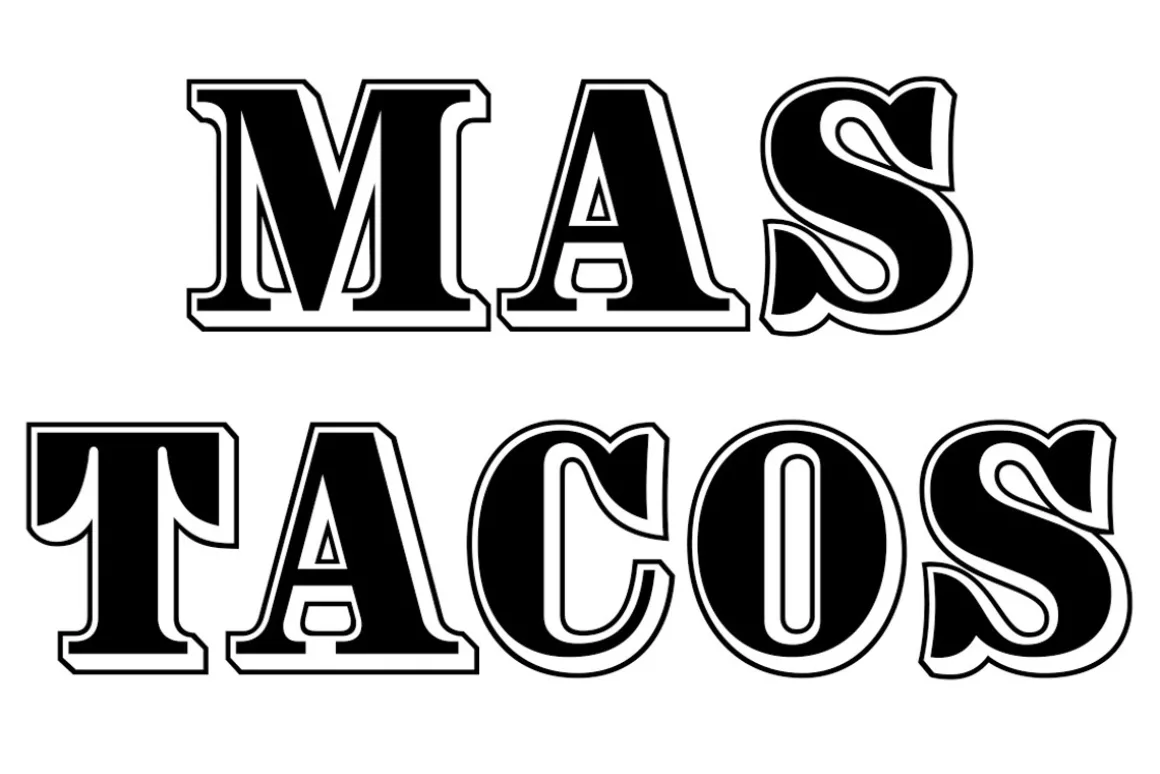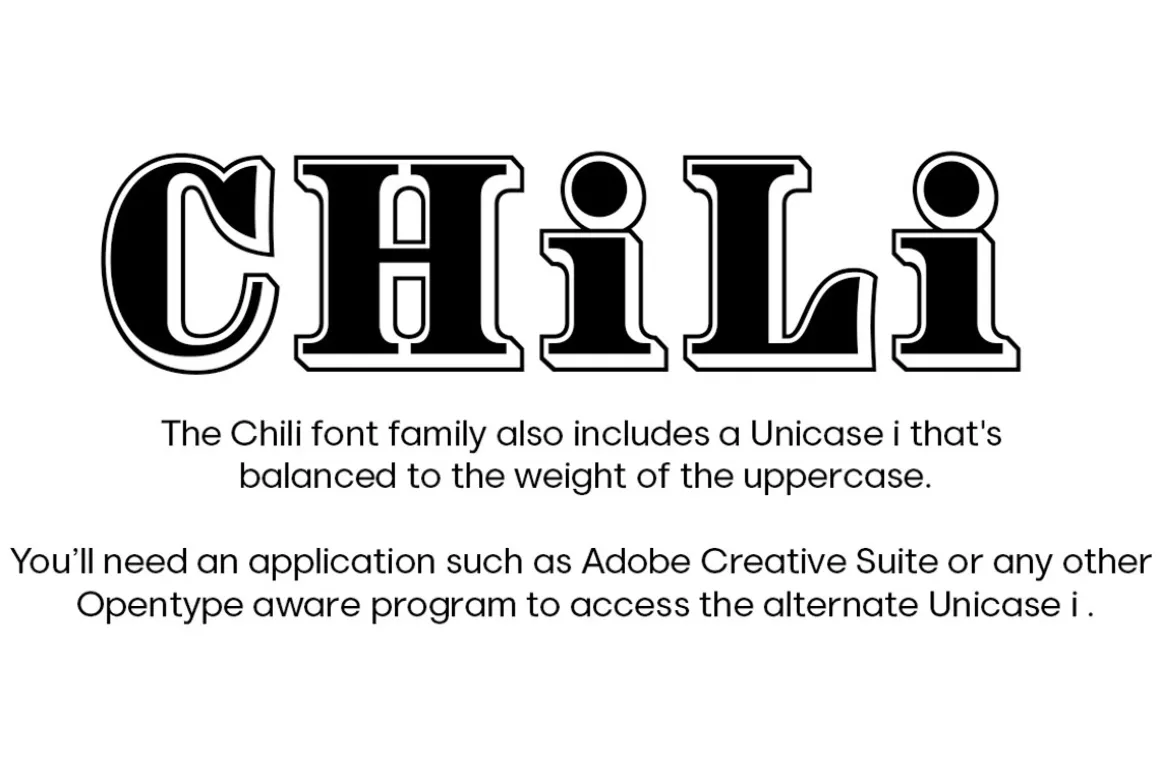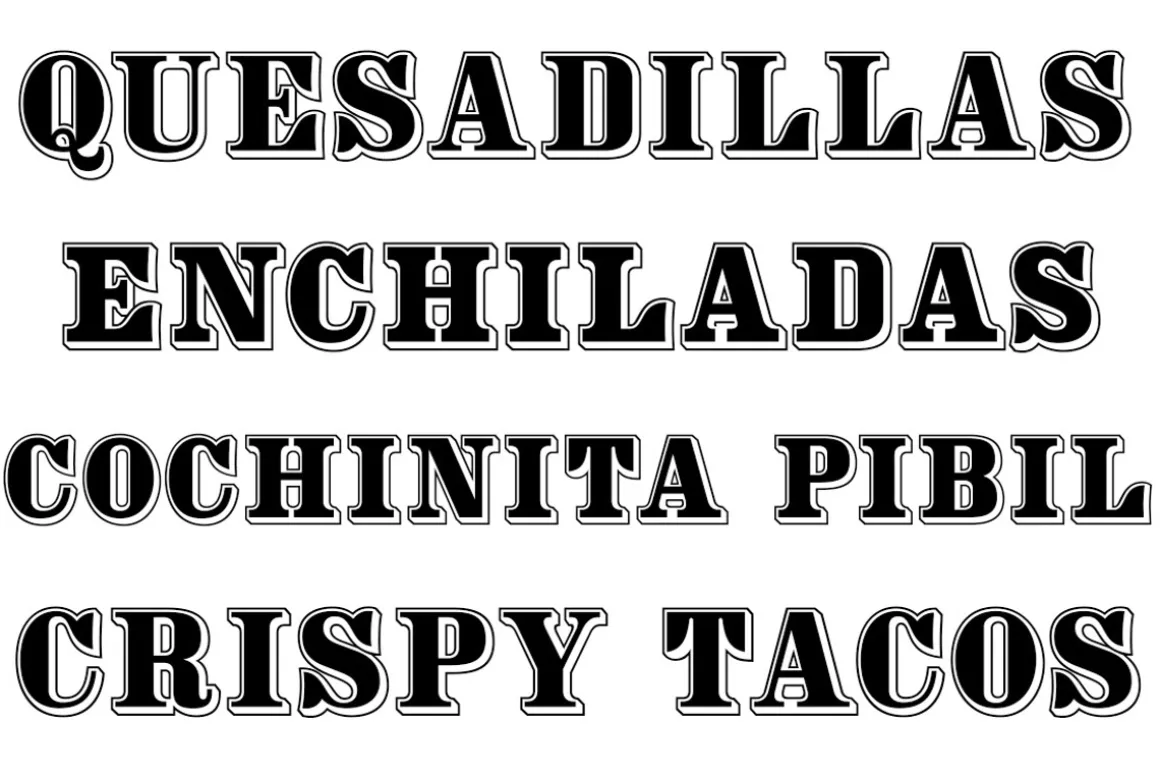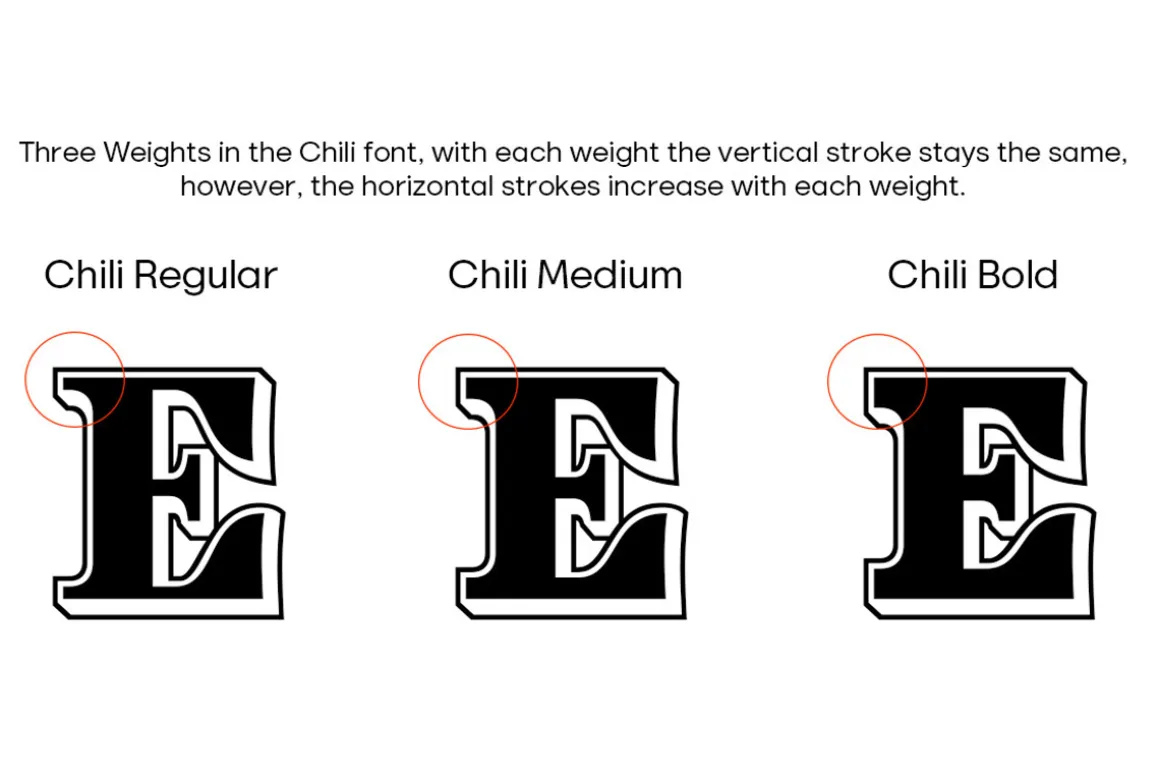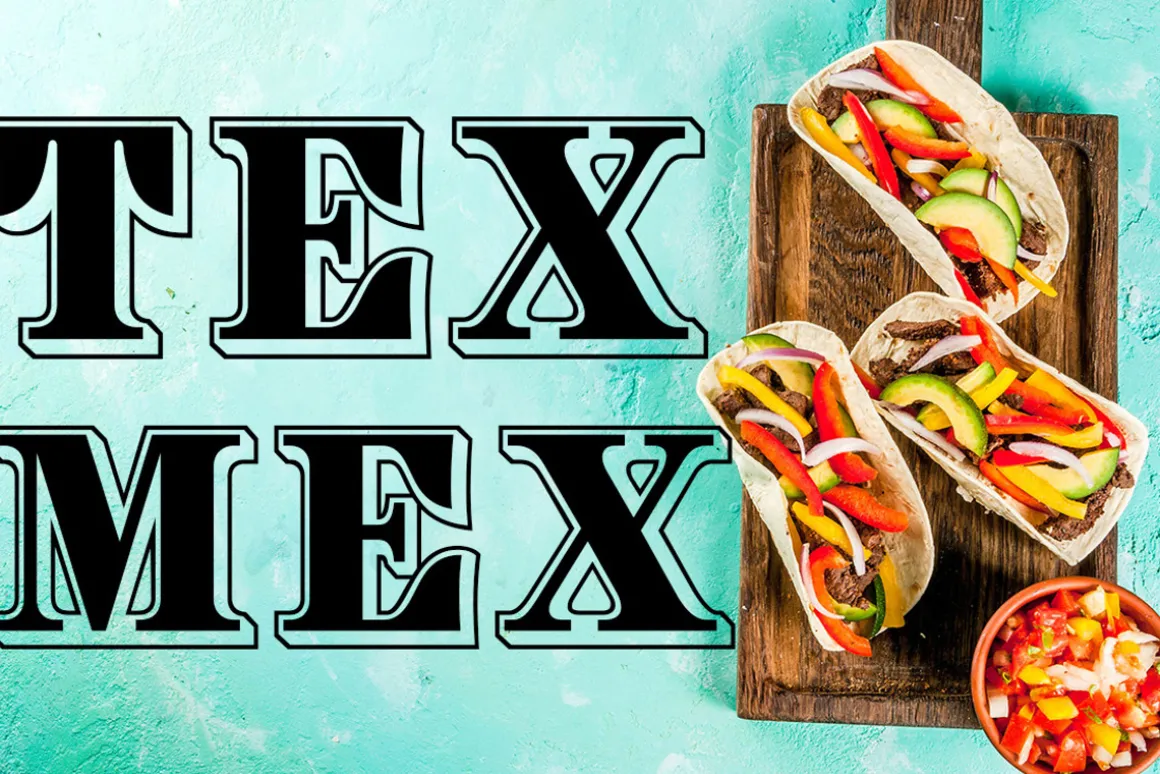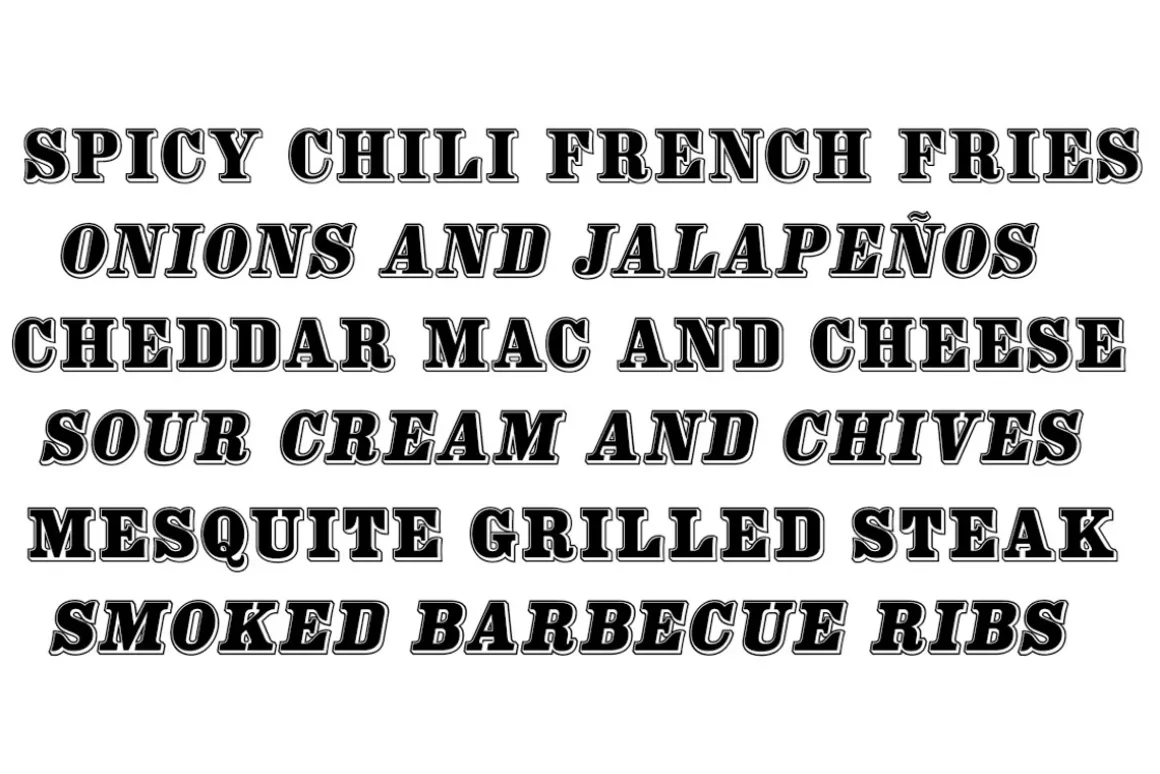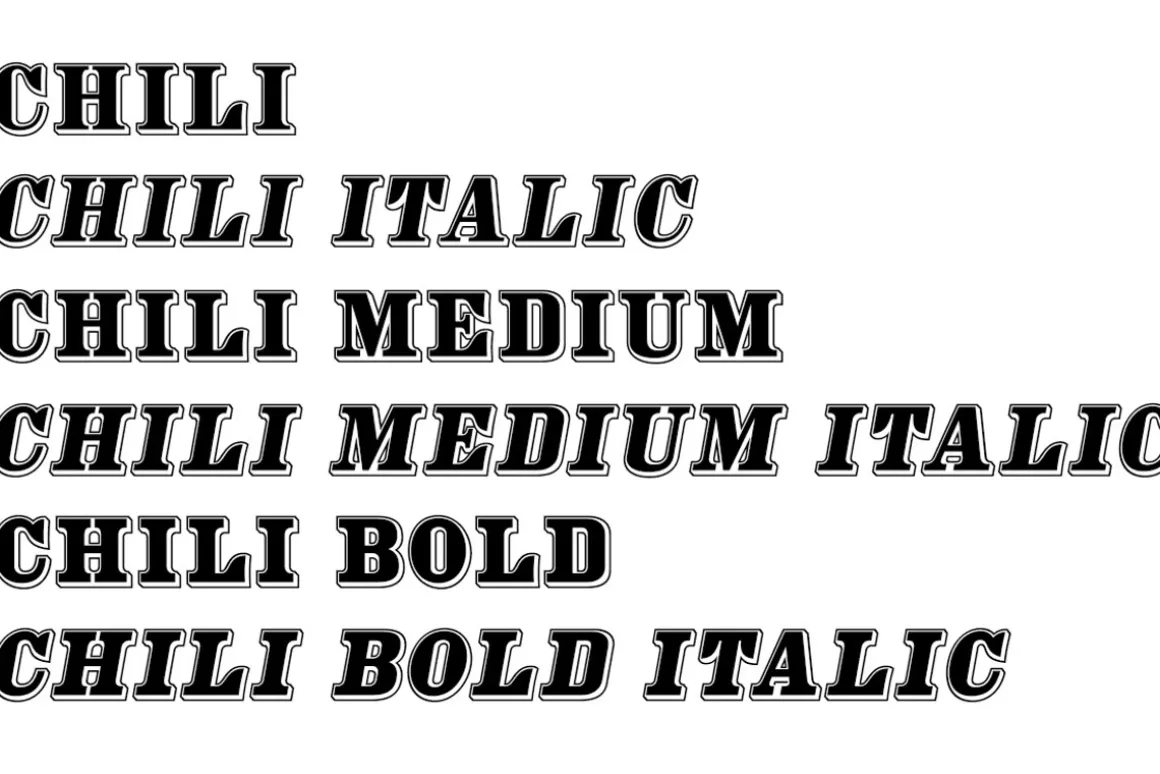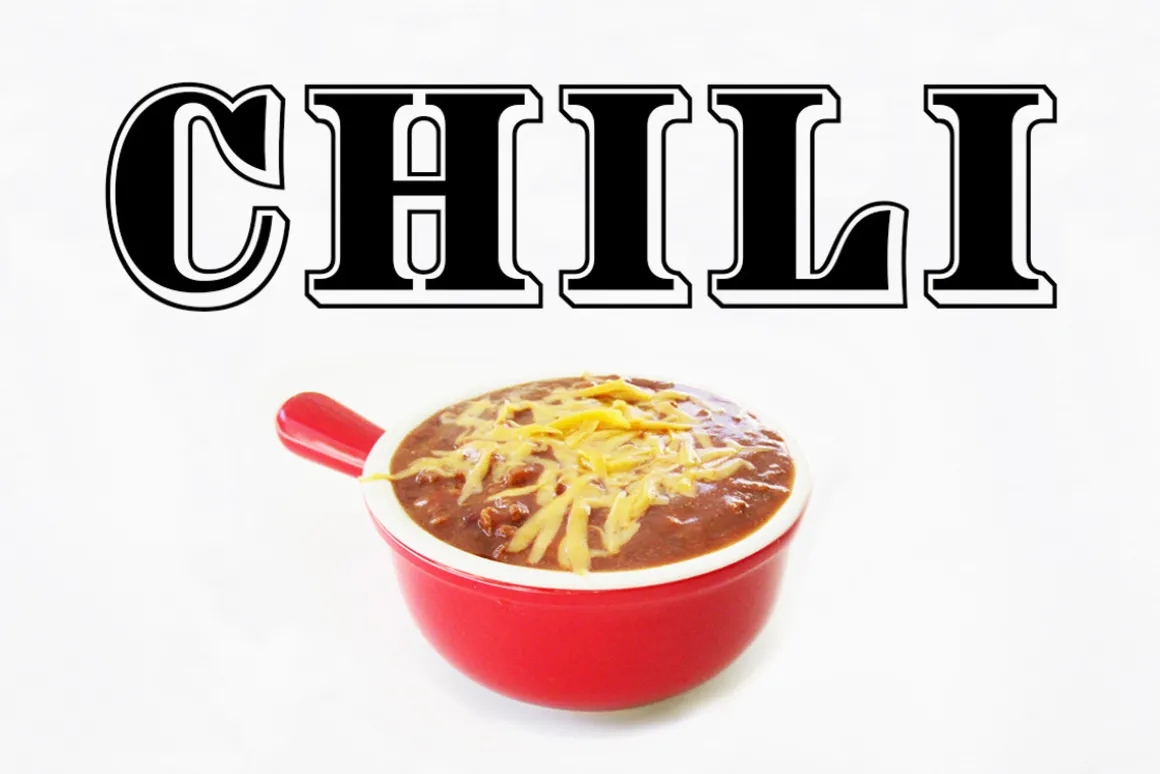
Chili is a version of our Texas Chili font with the spurs removed.
All FontMesa fonts include complete character sets with accented letters for European countries.
The Chili font family also includes a Unicase i that’s balanced to the weight of the uppercase.